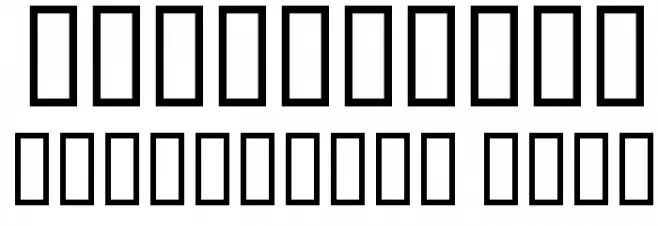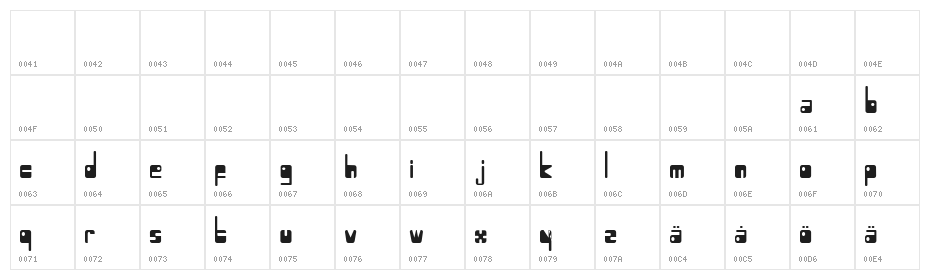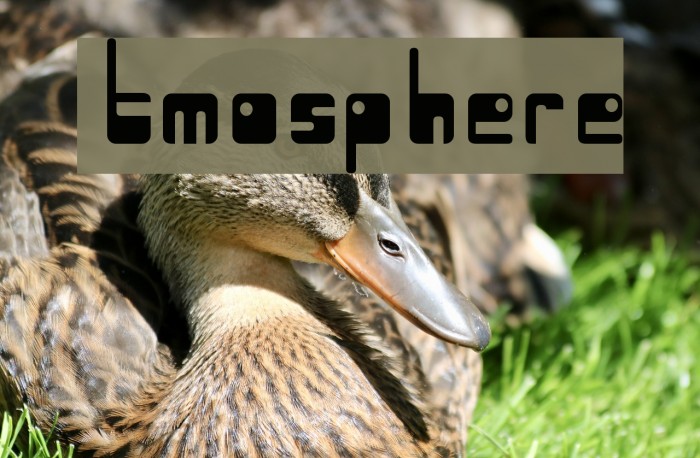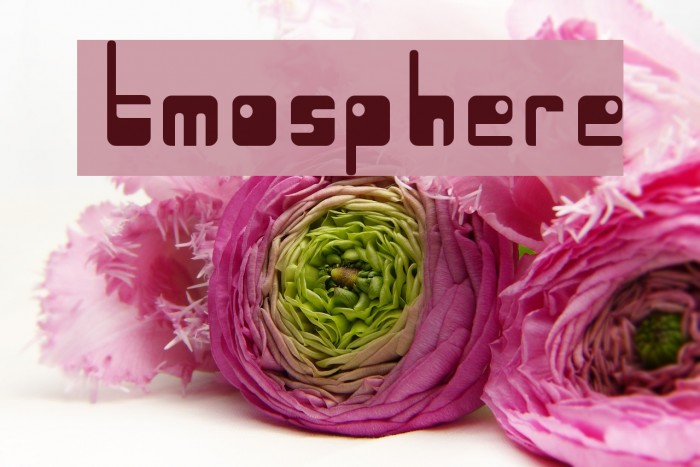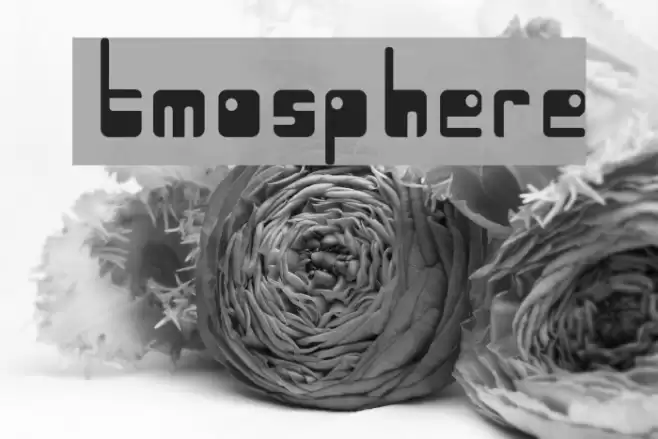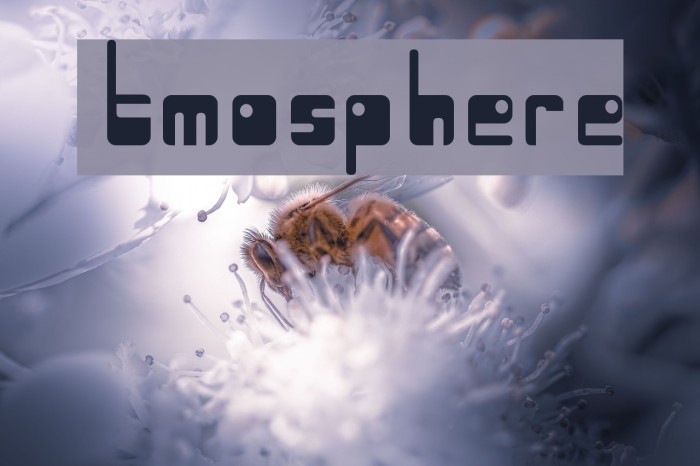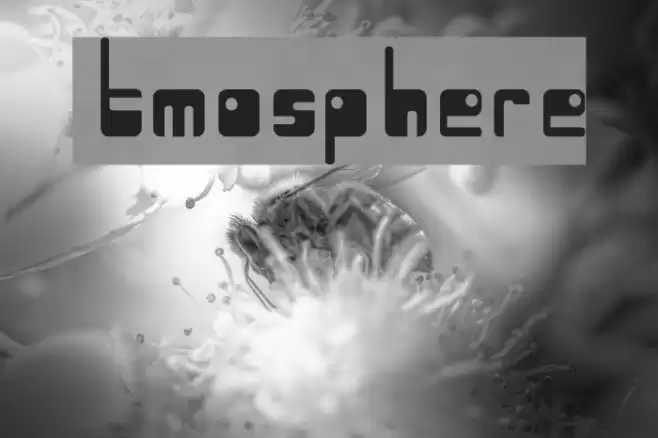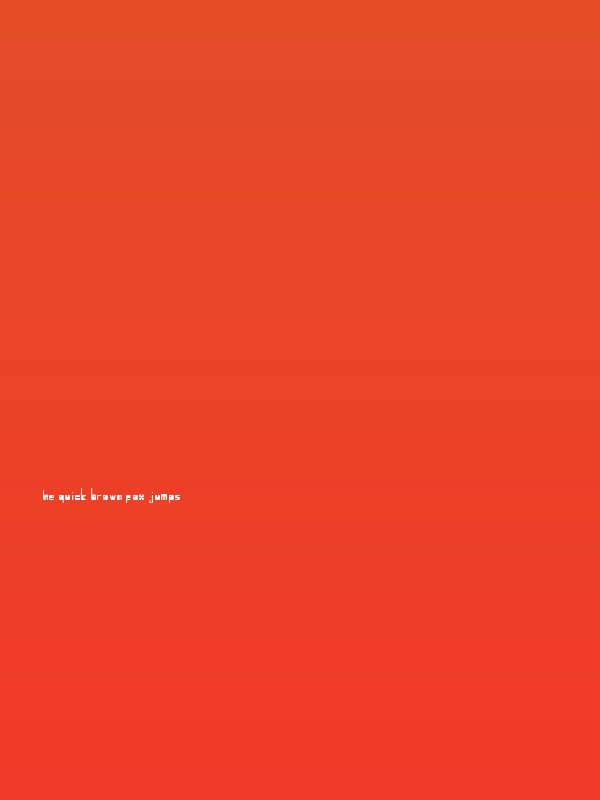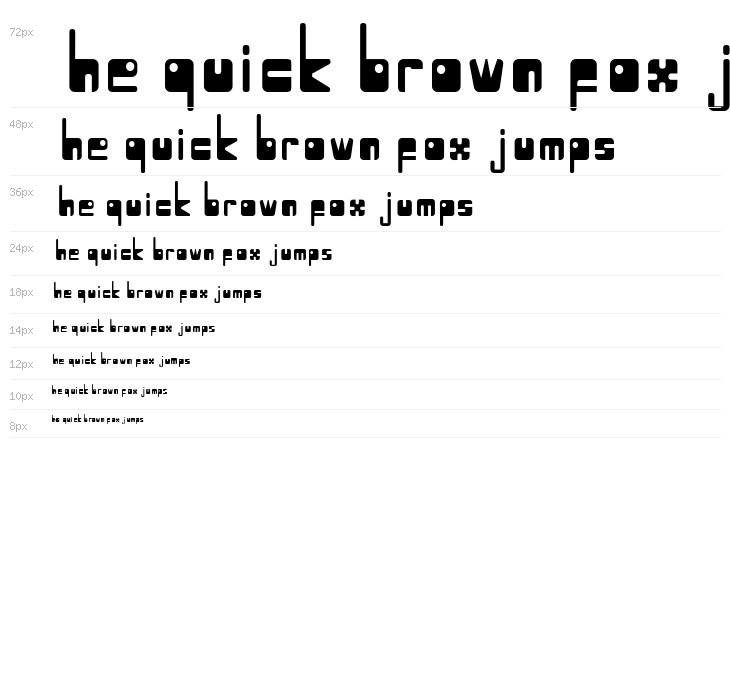
Atmosphere Font
Atmosphere Description
This font features a futuristic and geometric design with rounded edges and a bold presence. The characters are uniformly structured, creating a cohesive and modern look. The lowercase letters exhibit a unique style with consistent height and width, while the uppercase letters maintain a similar aesthetic. The numbers follow the same design principles, ensuring a seamless integration with the alphabet. The special characters are crafted to match the overall theme, making this font suitable for digital and tech-oriented projects. Its distinct appearance makes it stand out, yet it remains legible and functional.
| Use Case | Logos, Headlines, Digital interfaces |
| Proposed Projects | Ideal for tech branding, digital interfaces, video game design, and futuristic-themed posters. |